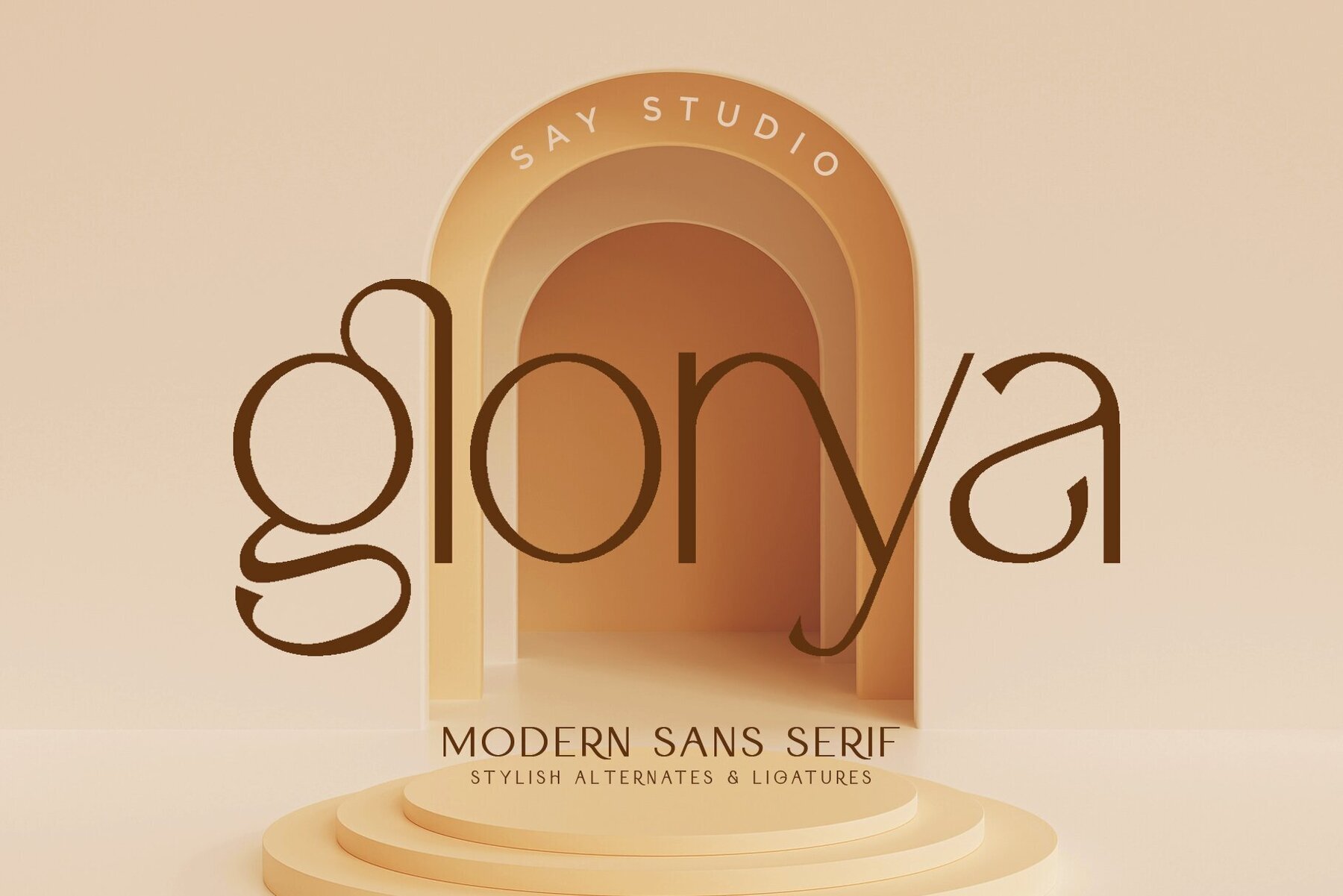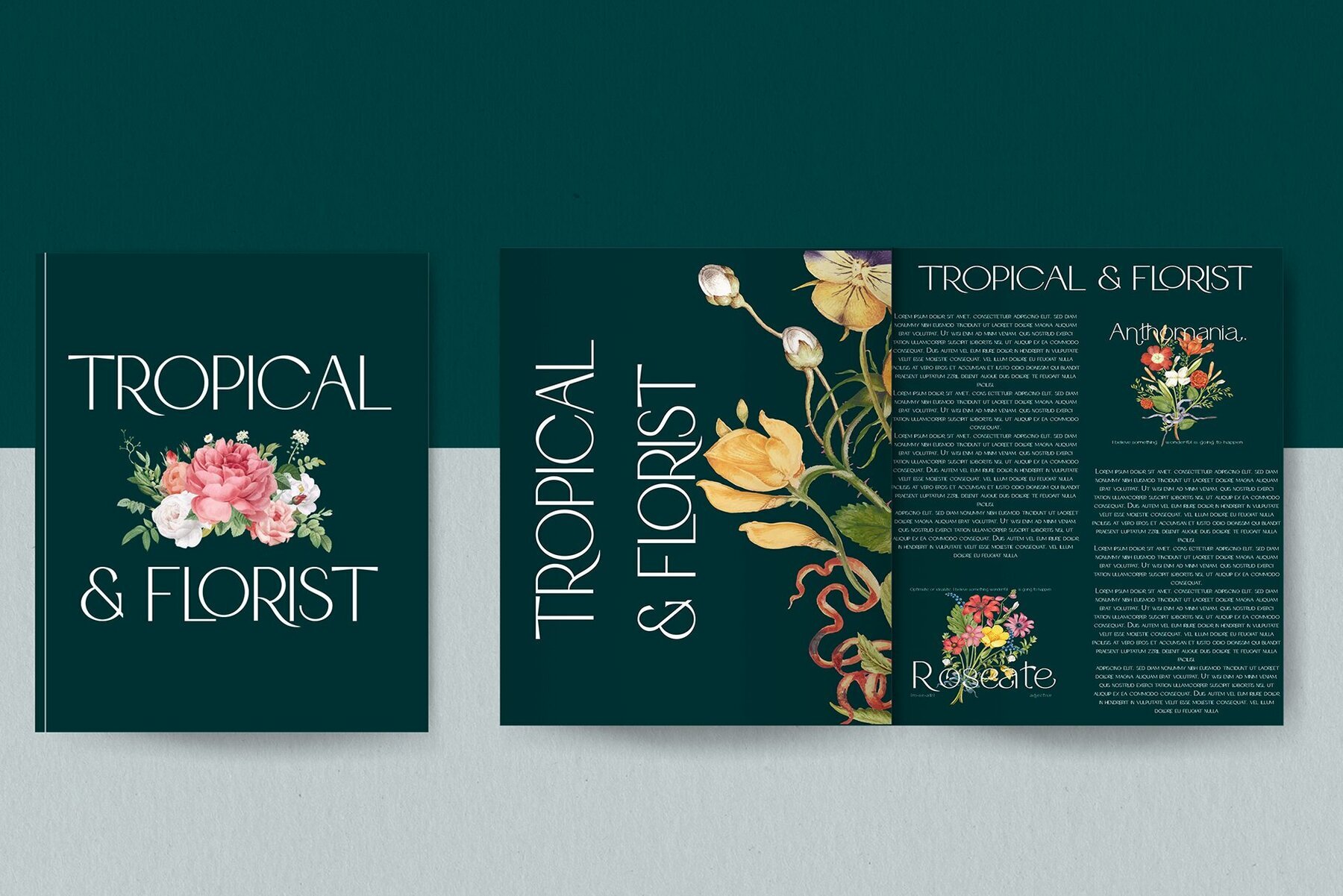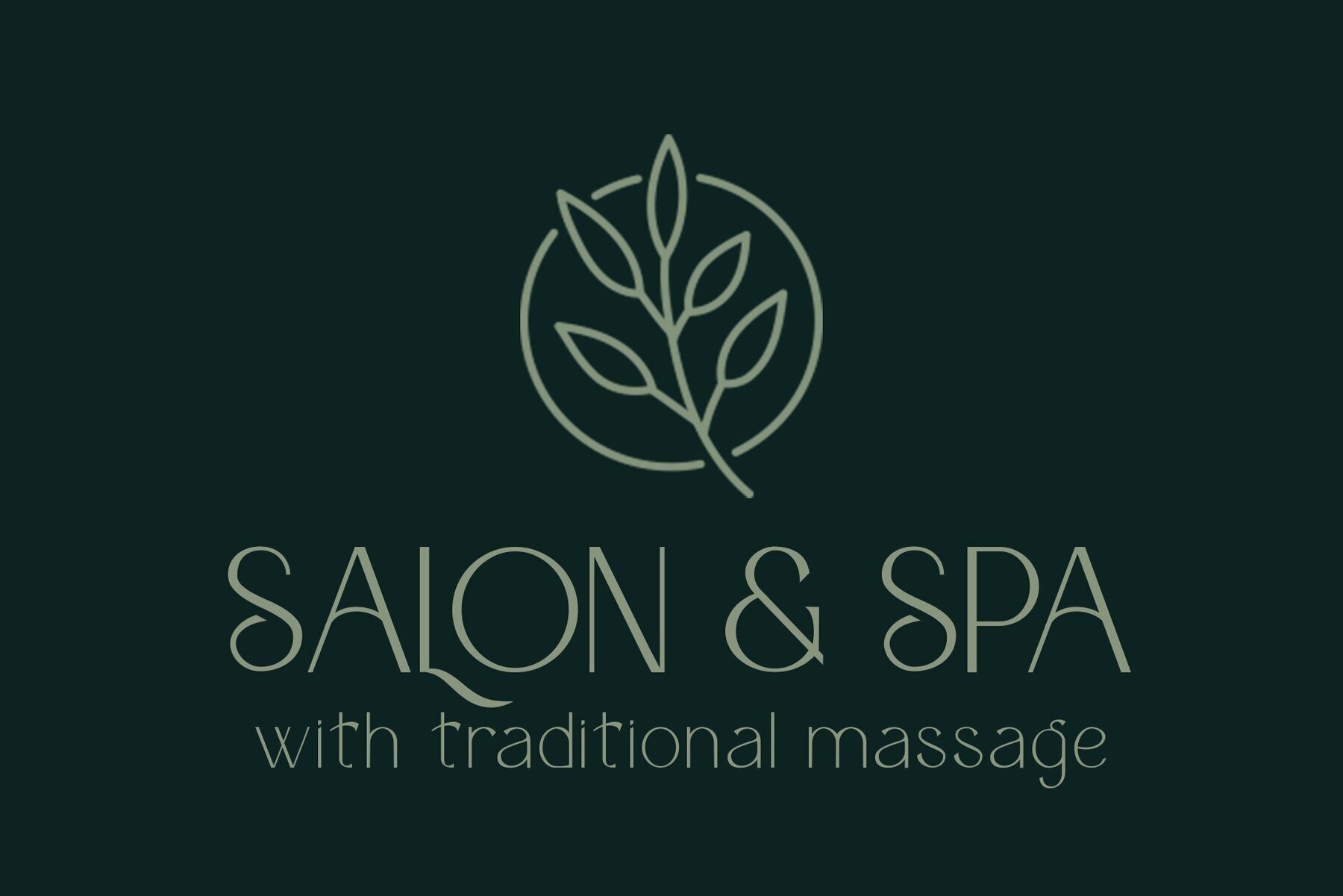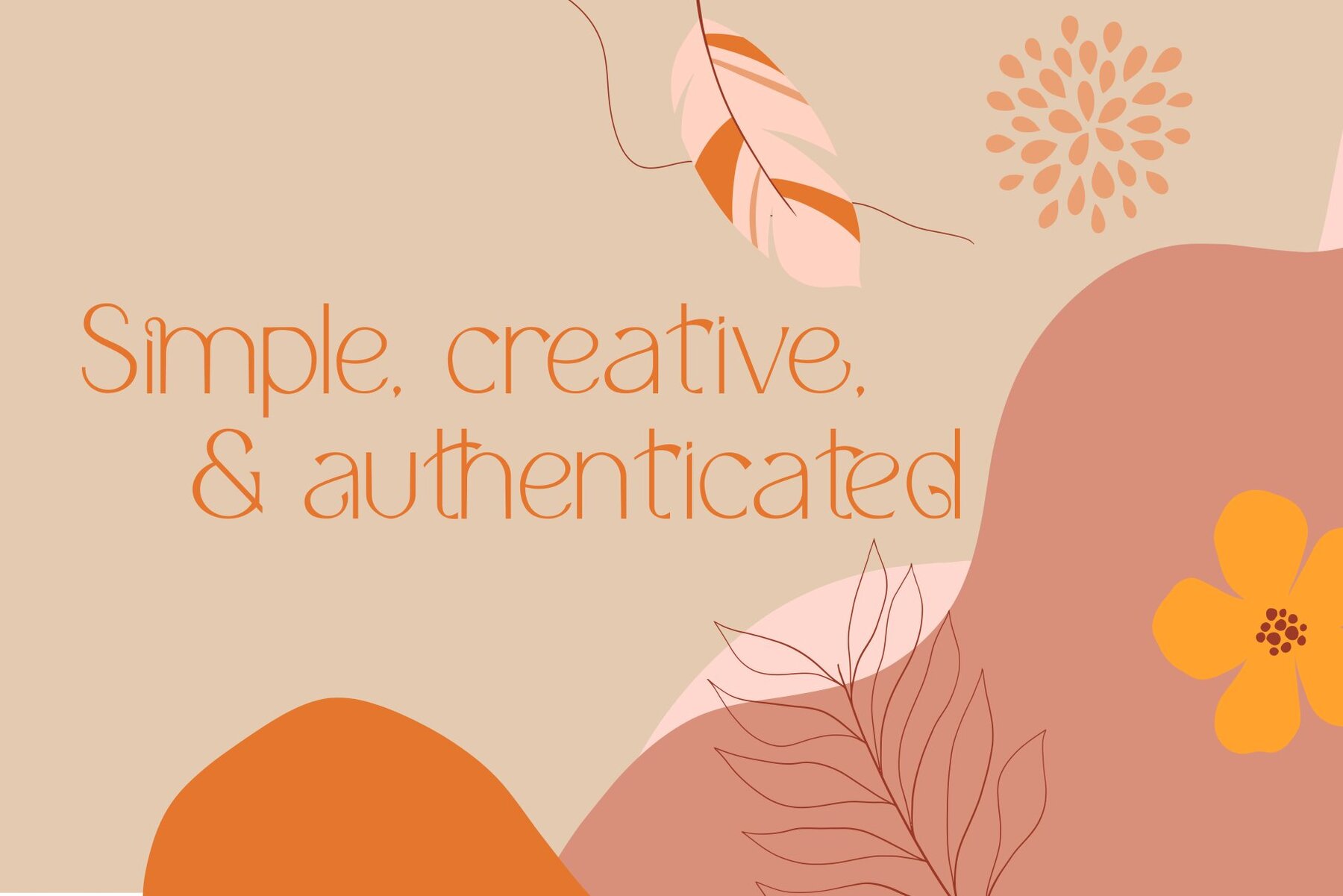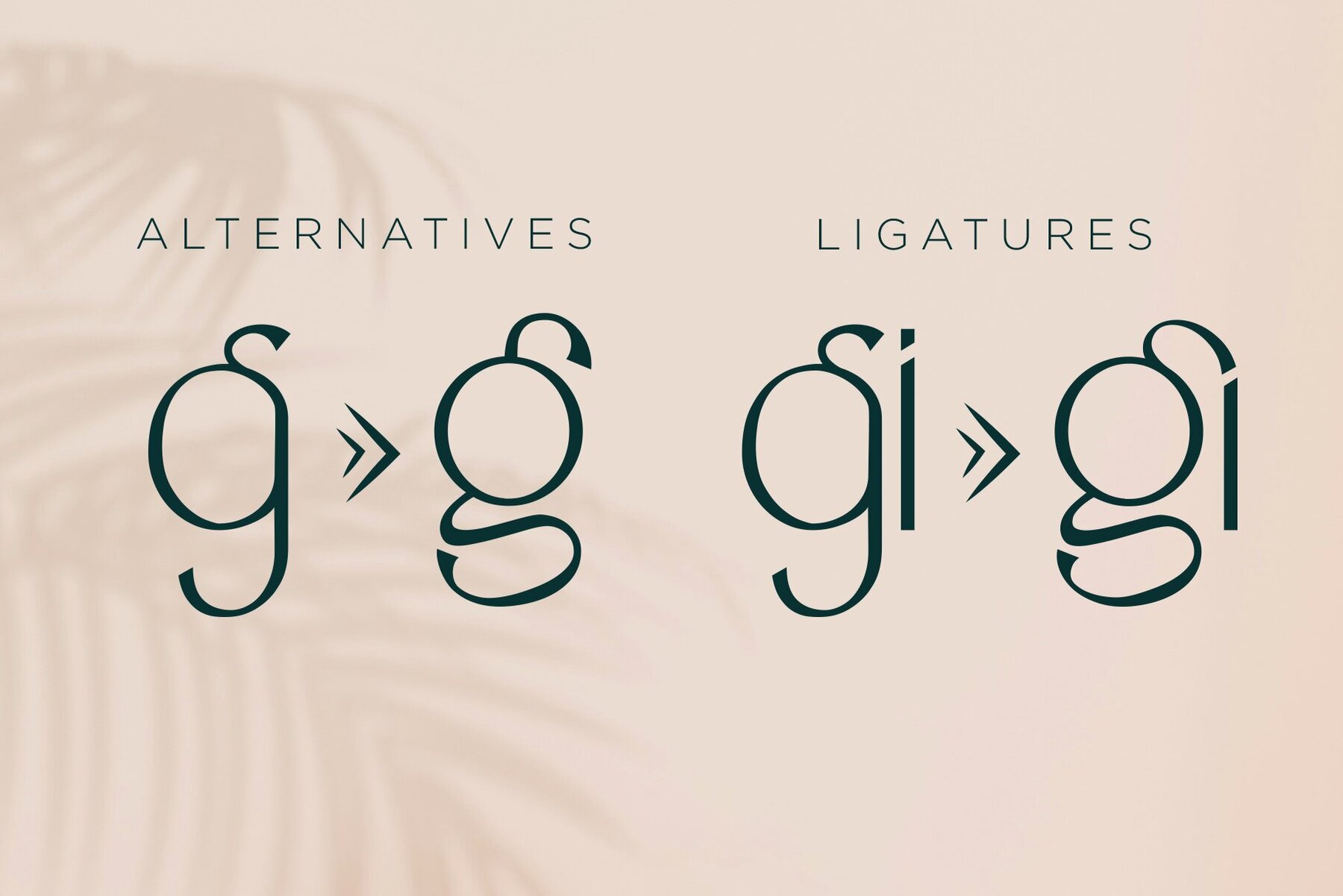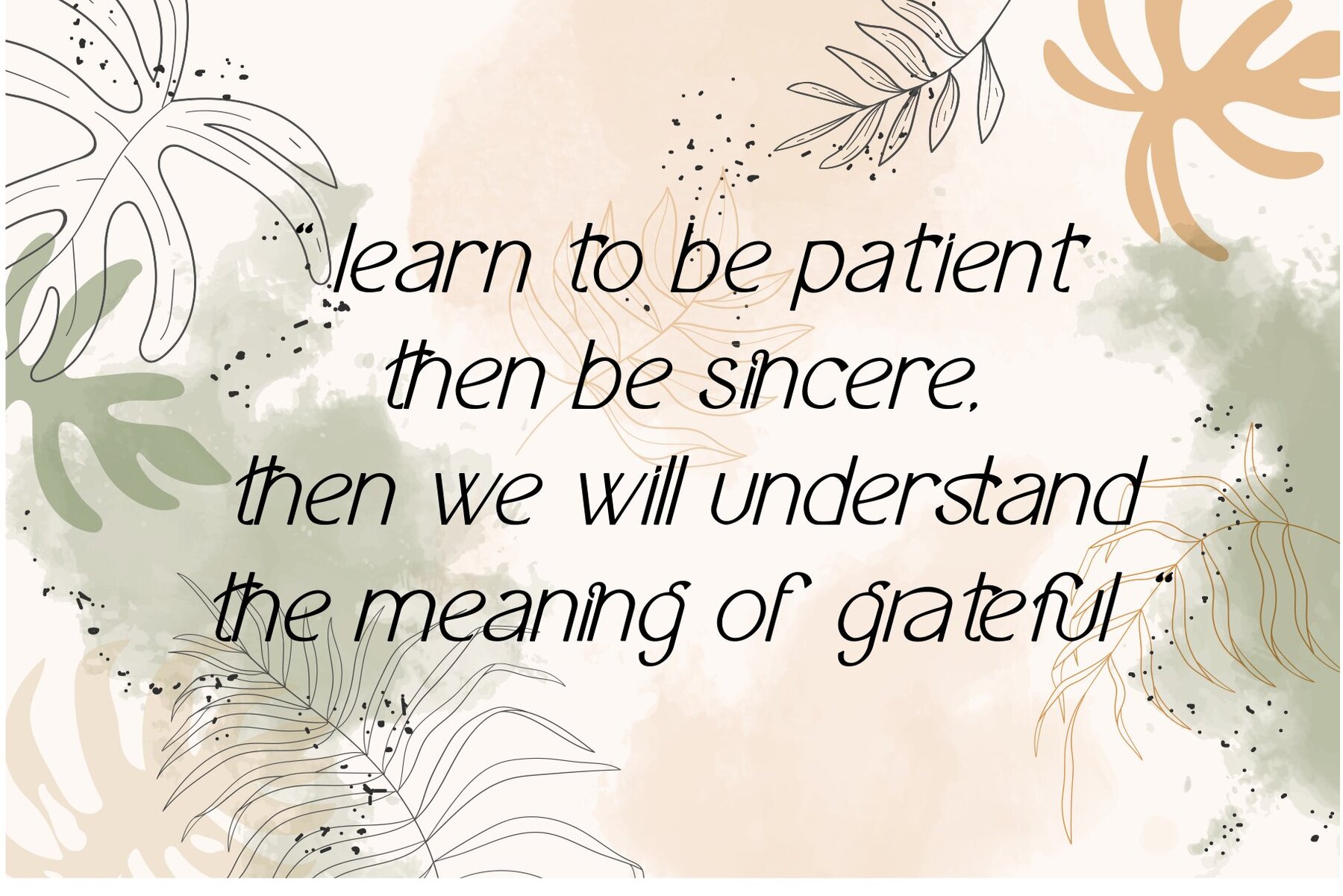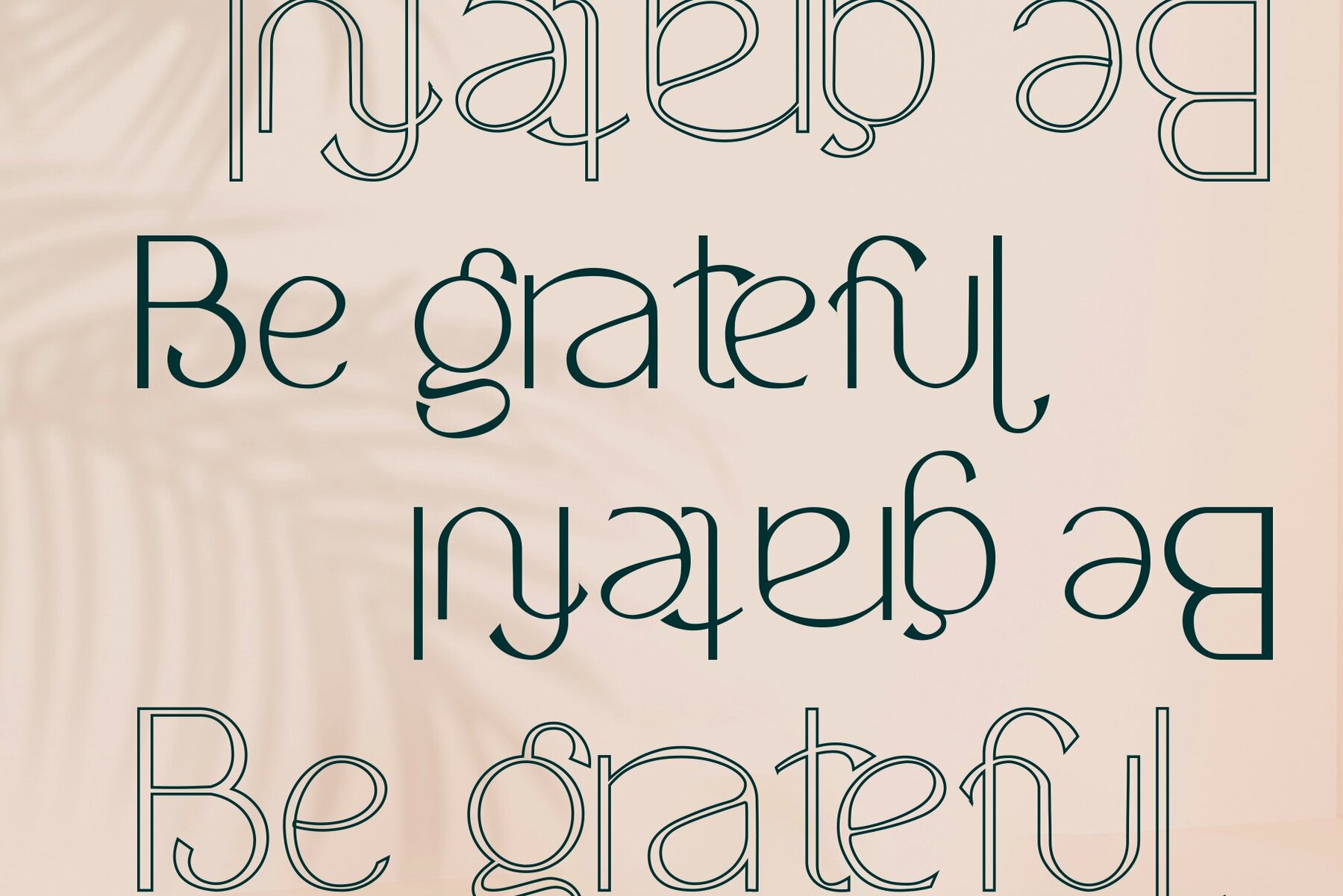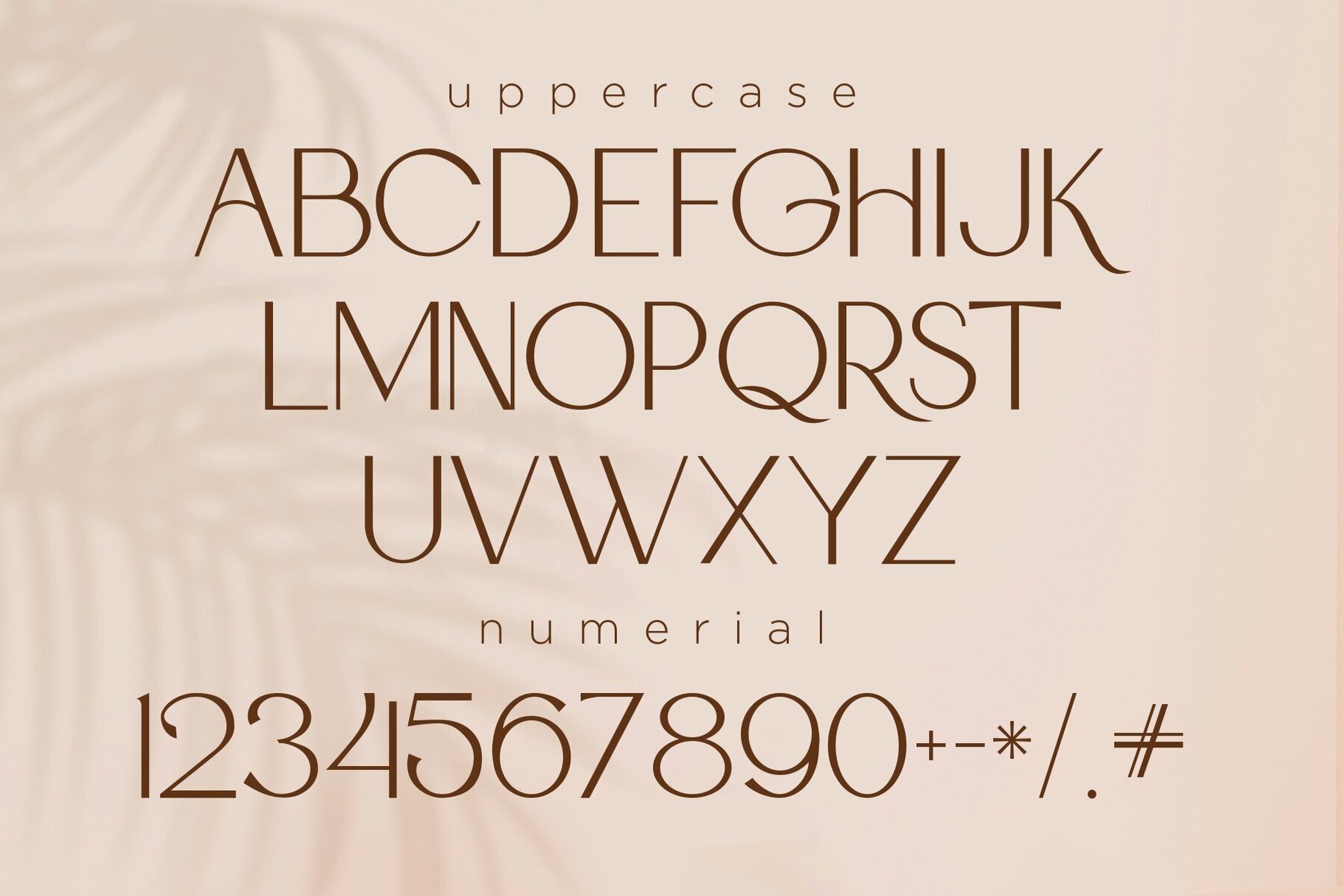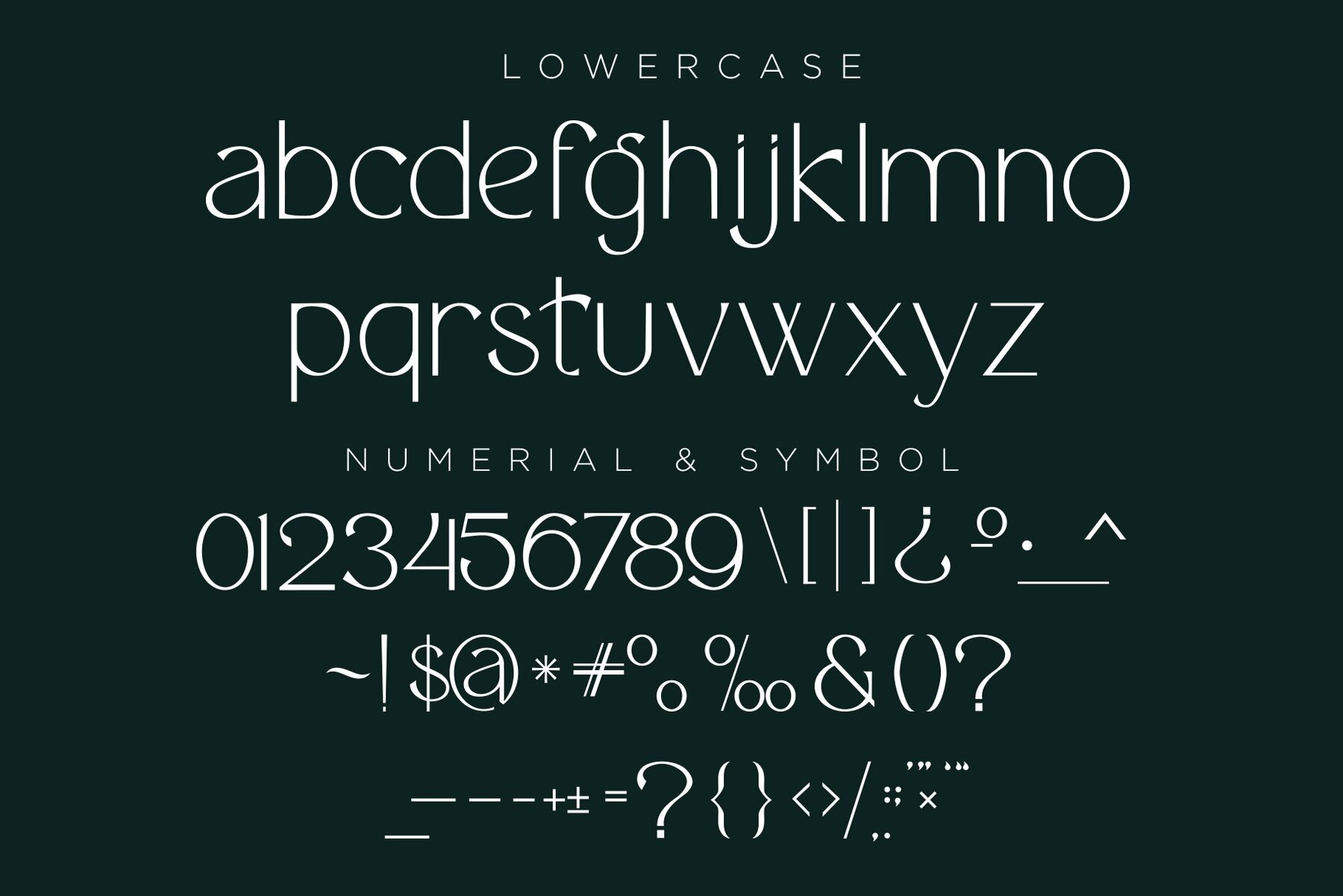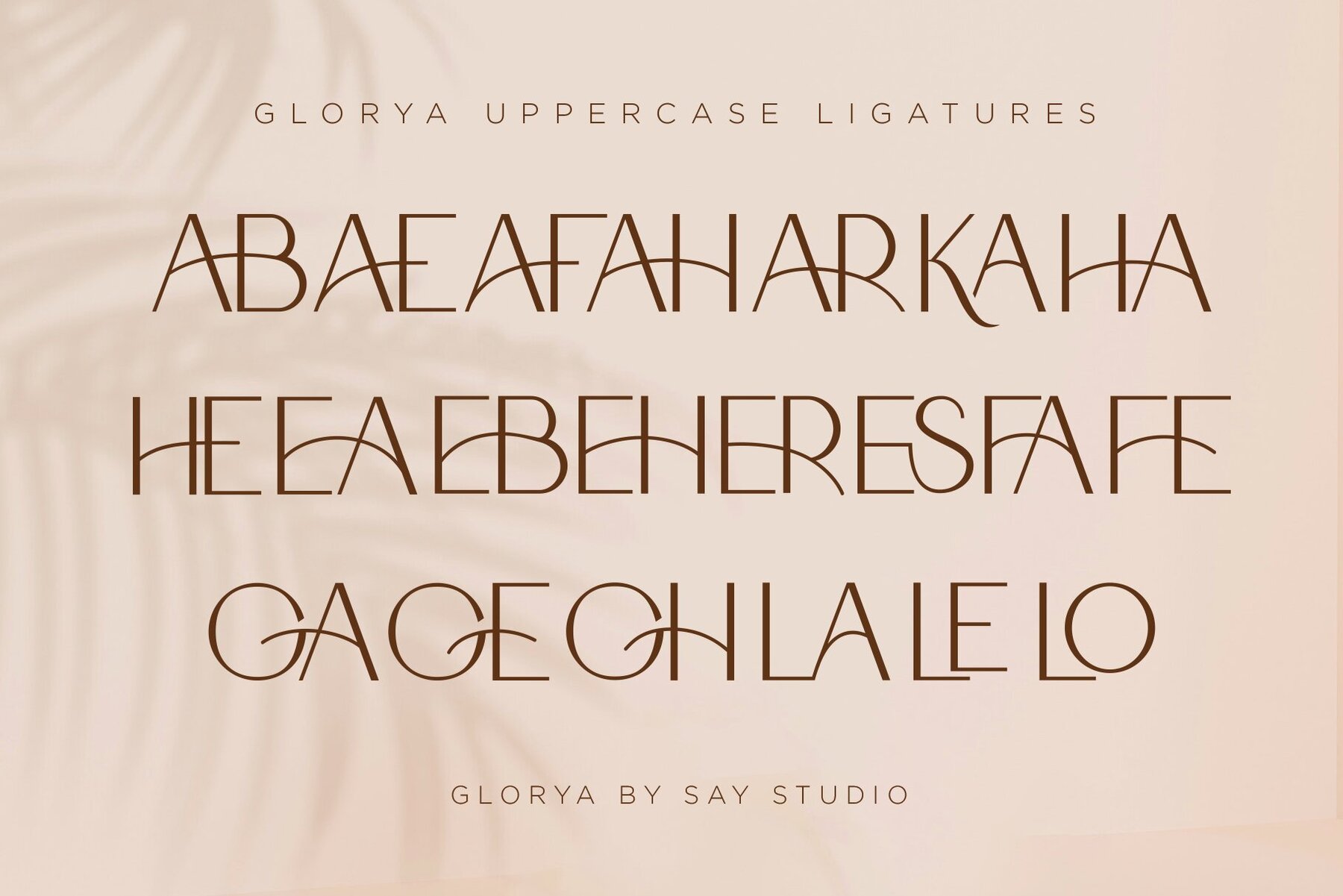
Glorya Font
glorya Regular
glorya Italic
glorya italic
Enhance your design projects with Glorya, a modern and stylish sans serif font meticulously crafted for branding needs. This typeface stands out with its unique ligatures that add a distinctive touch to any visual identity. Whether you're a designer or product owner, Glorya provides the perfect solution for projects requiring a sleek and modern aesthetic. Glorya simplifies the process of creating striking visuals, offering a diverse array of alternate characters to expand your creative possibilities. Should you have any inquiries about its usage, feel free to reach out for assistance.Glorya: A Modern Sans Serif for Contemporary Branding